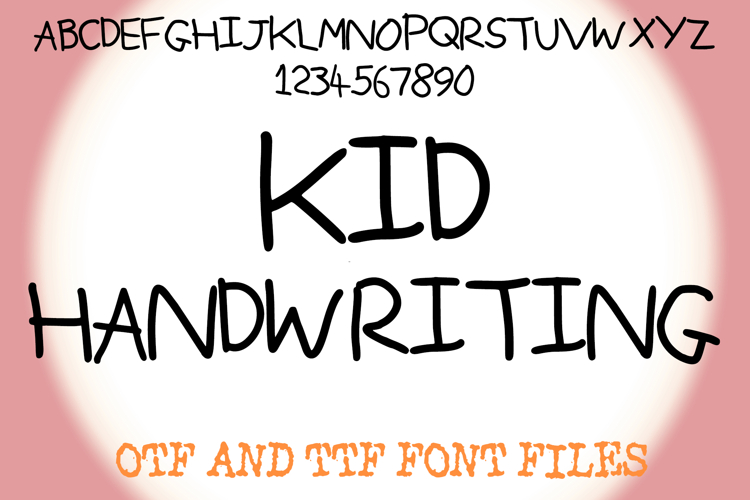
Kid Handwriting Lettering ABC Childs Text Font Alphabet OTF Type Illustration
A fun cartoon style font where you can create your own words and colour them to your vision!